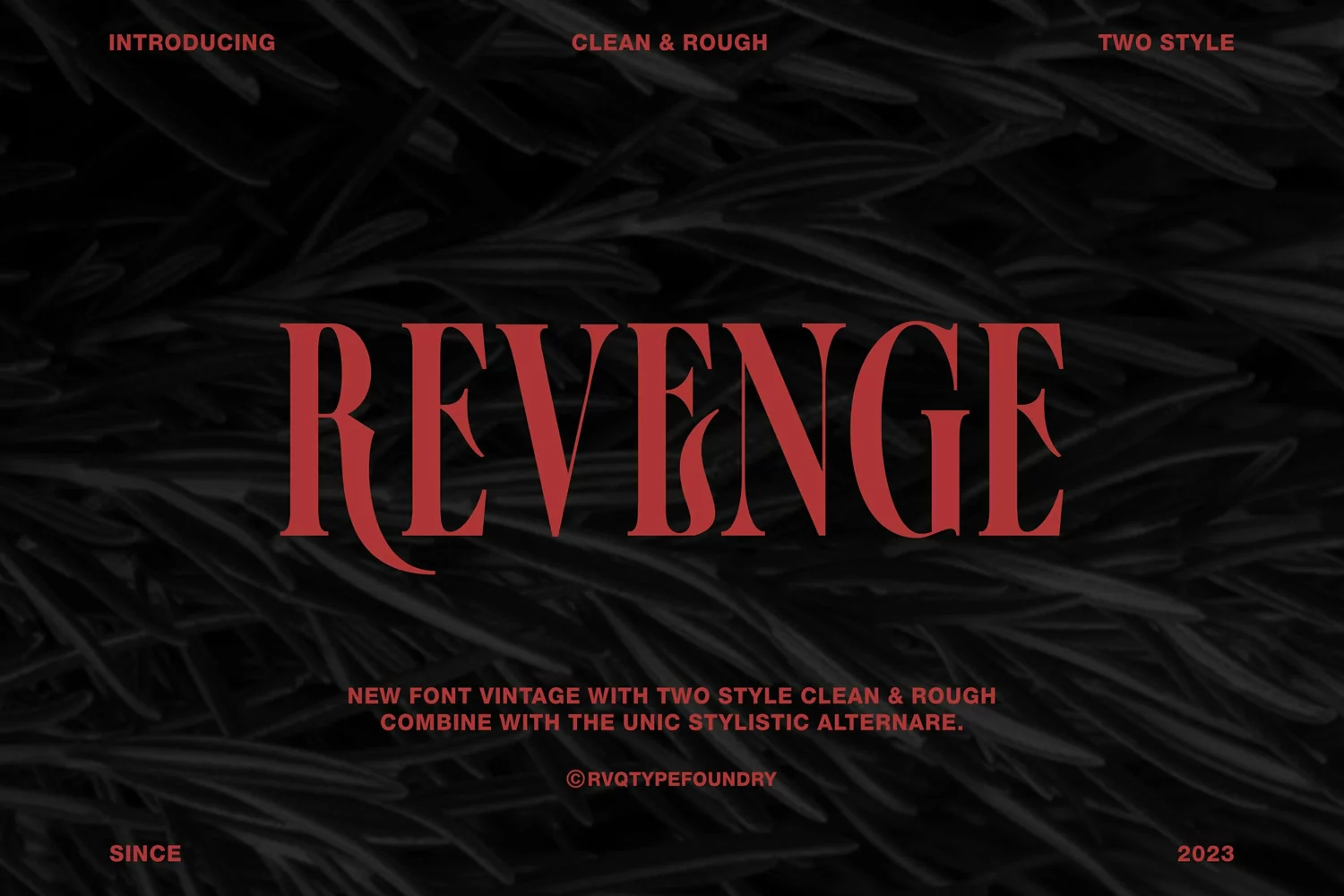
Revenge typeface is the new font from Rvq typefoundry with two style clean and rough ,was created as a dual-purpose font To create the beautiful combination, just mix your words with the alternative glyphs. Revenge typeface includes a full set of capital and lowercase letters, as well as multi-lingual support, currency figures, numerals, punctuation & some extra glyps.